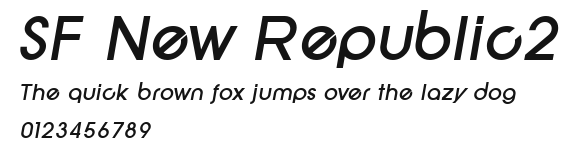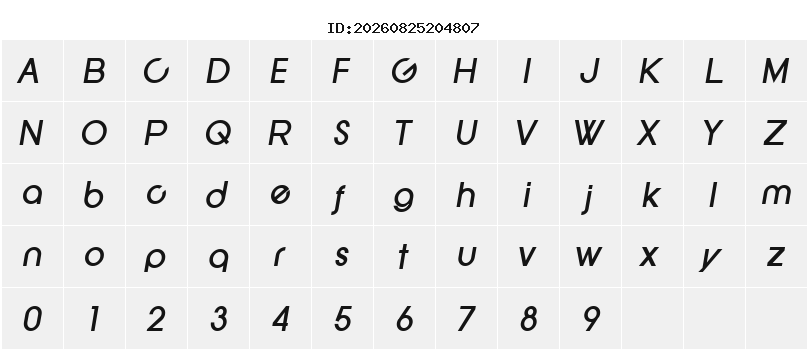
• Font Name: SF New Republic2
• Font ID: SF New Republic Bold Italic
• Full Font Name: SF New Republic2 Bold Italic
• PostScript Name: SFNewRepublic2BoldItalic
About SF New Republic2.ttf
SF New Republic2.ttf is a modern, elegant sans-serif font designed for ultimate readability and visual harmony. Perfect for branding, headlines, web design, and print materials.